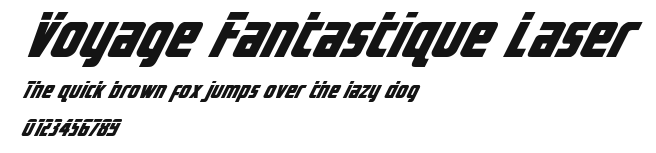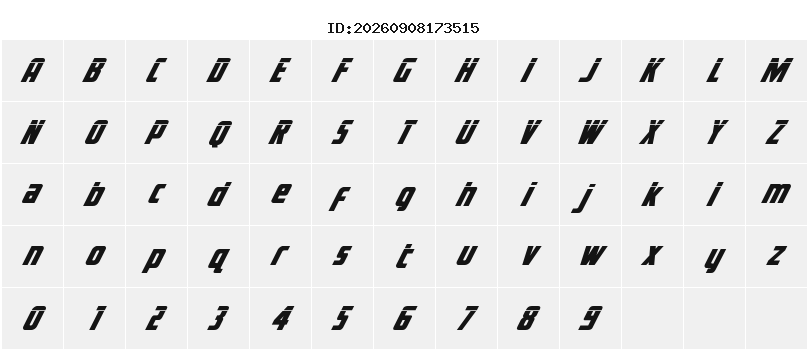
• Font Name: Voyage Fantastique Laser
About Voyage Fantastique Laser.ttf
Voyage Fantastique Laser.ttf is a modern, elegant sans-serif font designed for ultimate readability and visual harmony. Perfect for branding, headlines, web design, and print materials.